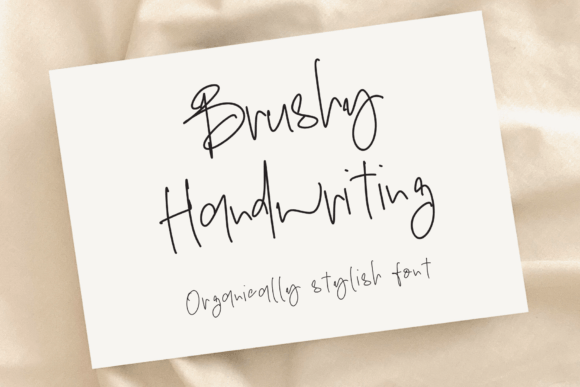
Unleash the Charm of Hand-Drawn Illustrations with Brushy Handwriting Font
I’ll never forget the design project that led me to discover Brushy Handwriting. I was working on a youth-themed campaign for a local community center, and I was struggling to find a font that captured the playful, carefree spirit of the project. The client wanted something that felt organic and artistic, but I was coming up blank. That’s when I stumbled upon Brushy Handwriting, and it was love at first sight! ✨
This enchanting font has been a game-changer for my design projects, and I’m excited to share its charm with you. In this article, we’ll dive into the world of Brushy Handwriting, exploring its features, uses, and alternatives.
Here’s what I’m obsessed with about Brushy Handwriting:
• ✅ Authentic hand-drawn feel: The font’s irregularities and imperfections make it feel like a genuine, hand-painted piece of art.
• ✨ Expressive freedom: Brushy Handwriting’s varied strokes and connections evoke the feeling of a painter’s brush, adding a touch of whimsy to any design.
• 🎨 Versatility: This font is perfect for a wide range of projects, from youth-themed designs to cheerful visual concepts and anything that needs a dash of nature’s artistry.
And, like any font, Brushy Handwriting isn’t perfect. A few quirks to keep in mind:
• ⚠️ Limited legibility at small sizes: Brushy Handwriting can be tricky to read when scaled down, so be sure to use it at larger sizes or for display purposes only.
• 🤔 Occasional inconsistencies: As a hand-drawn font, Brushy Handwriting may have slight inconsistencies in letter spacing or kerning, which can add to its charm but also require some manual adjustments.
The Story Behind Brushy Handwriting
Brushy Handwriting was inspired by the works of a fictional artist known for her whimsical, hand-painted illustrations. The font’s creator aimed to capture the essence of her art, infusing it with the charm and playfulness of a painter’s brush. The result is a font that feels both organic and artistic, perfect for designs that require a touch of nature’s own artistry.
What type of projects is Brushy Handwriting best suited for? Brushy Handwriting is perfect for youth-themed designs, cheerful visual concepts, and any project that requires a touch of nature’s artistry.
Can I modify Brushy Handwriting to suit my design needs? While it’s possible to modify Brushy Handwriting, it’s recommended to work within the font’s existing features and limitations to maintain its authenticity and charm.
With Brushy Handwriting, you’ll unlock a world of creative possibilities. Its unique charm and versatility make it an excellent addition to any design project. So go ahead, experiment with Brushy Handwriting, and watch your designs come to life with the enchanting appeal of hand-drawn illustrations! 🎨